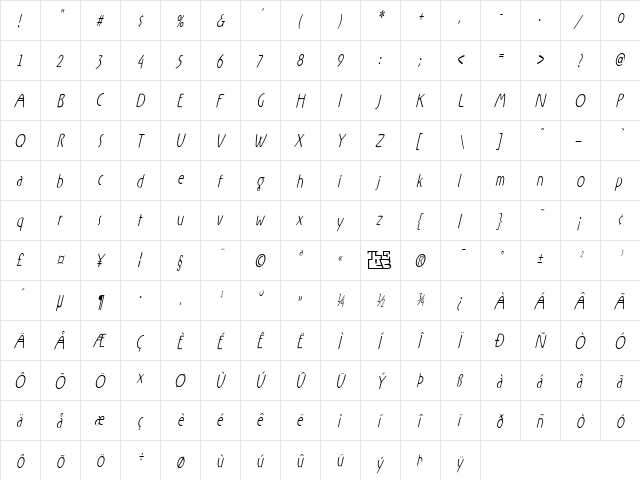
Rx-ZeroFive Regular
| Designer | Apostrophe (') |
Design Context for Rx-ZeroFive Typeface
Rx-ZeroFive takes a measured approach to typography — its balanced proportions and neutral character make it a reliable workhorse for both digital and print work.